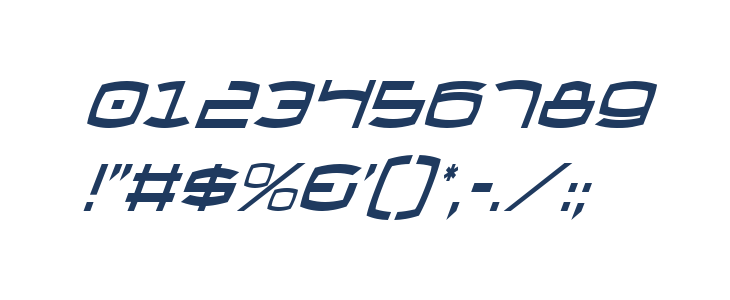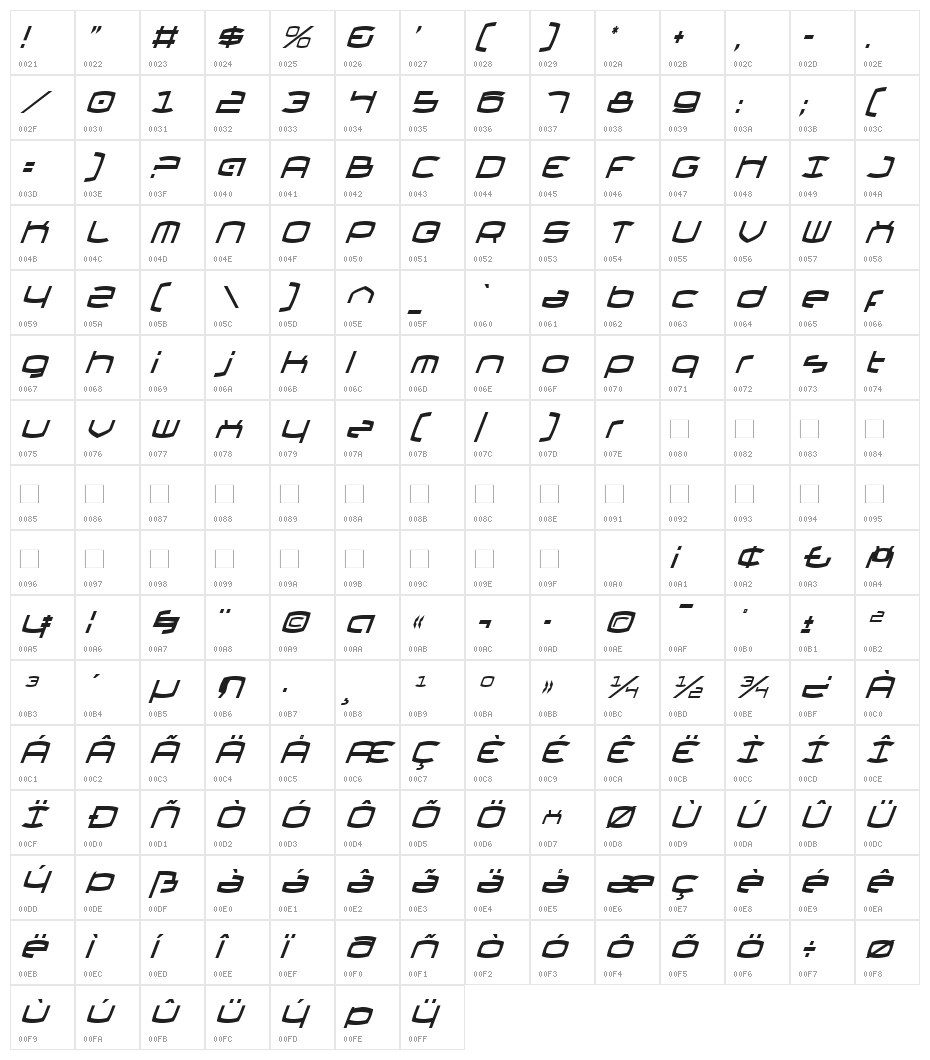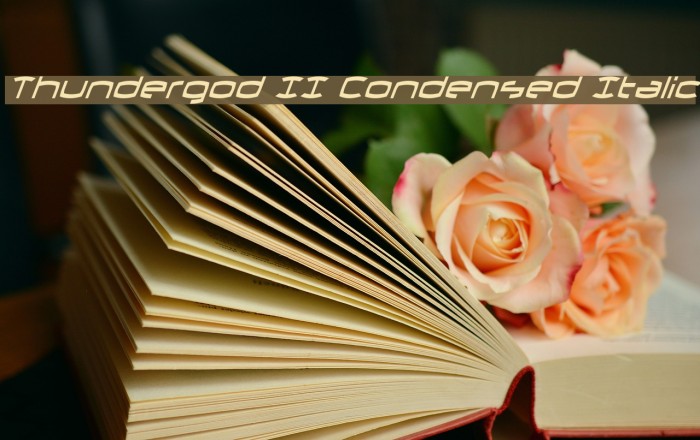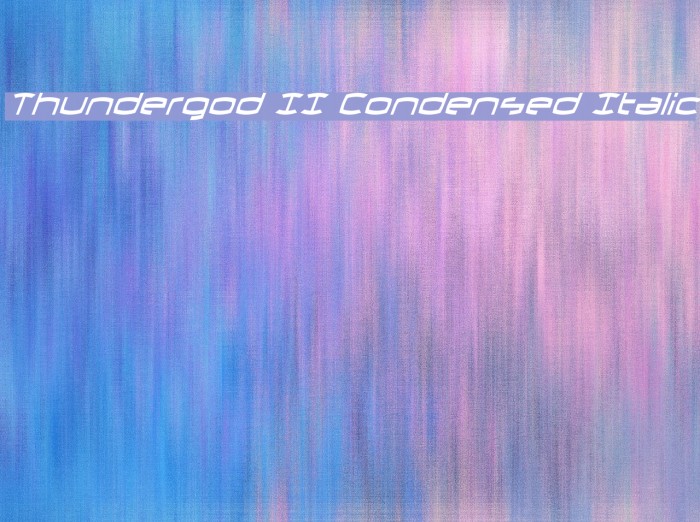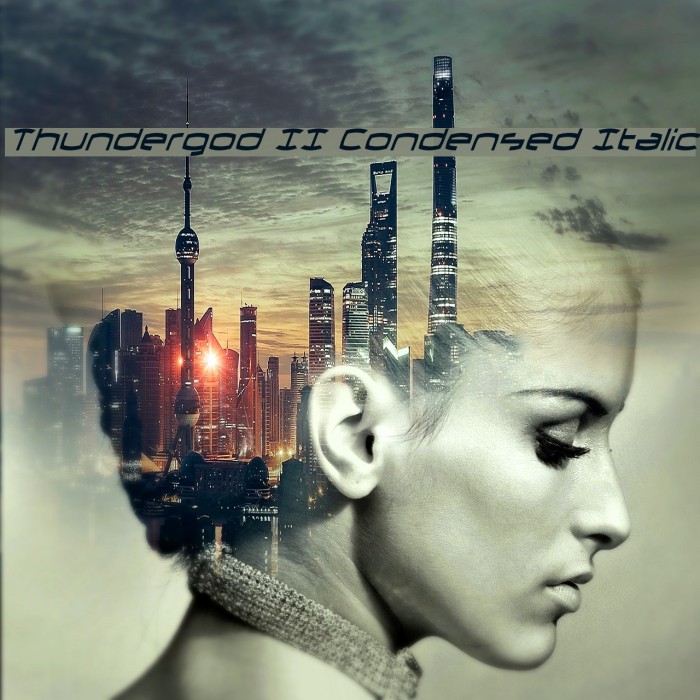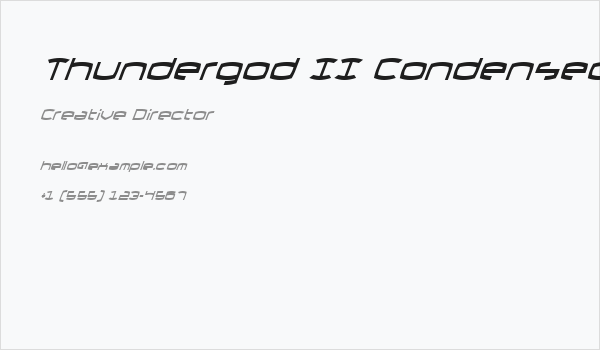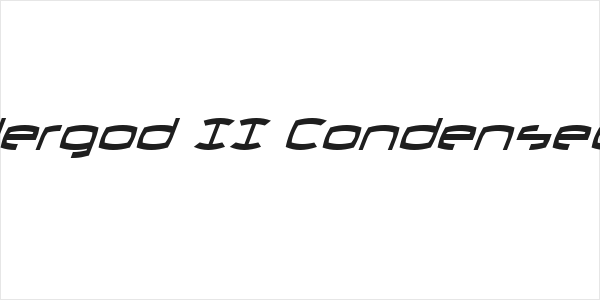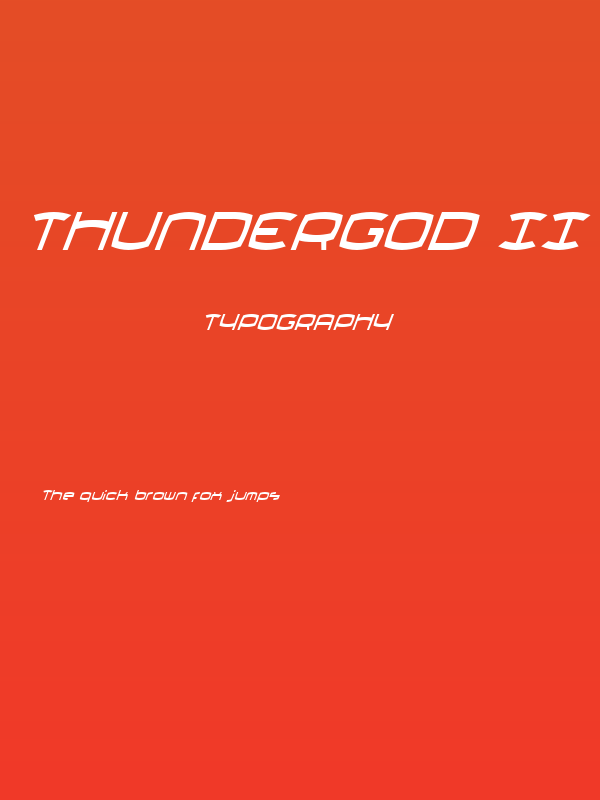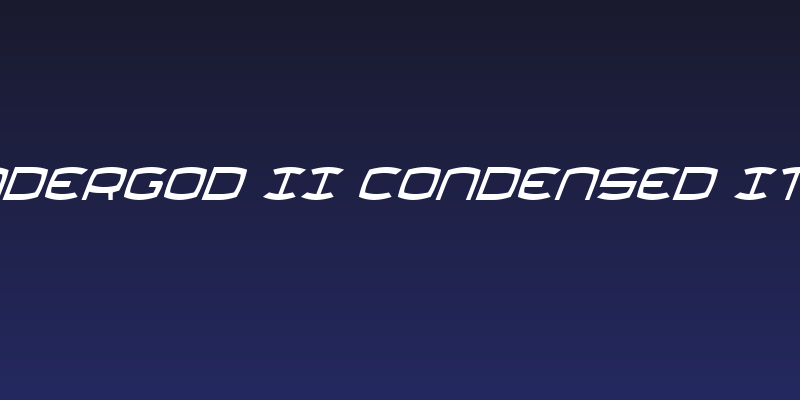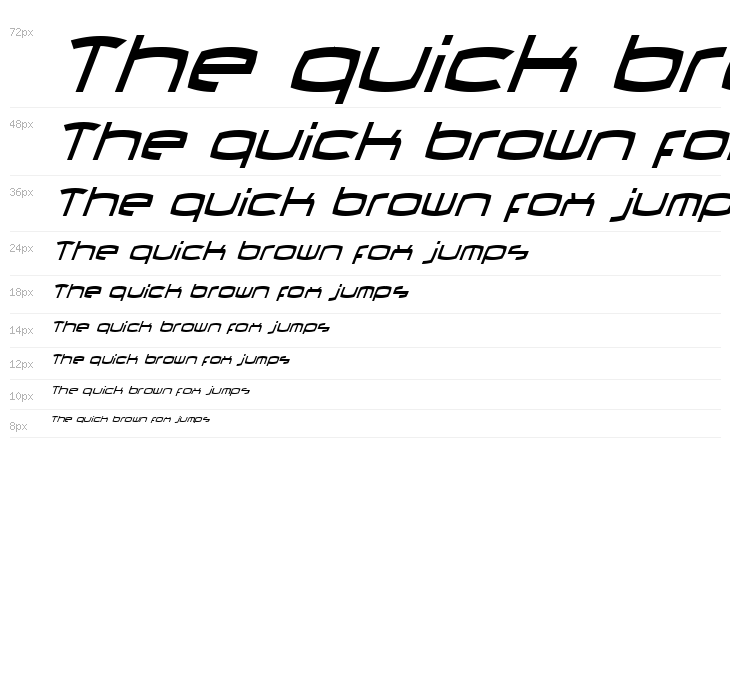
Thundergod II Condensed Italic Font
Thundergod II Condensed Italic Description
This font features a dynamic and futuristic design with a condensed and italicized style. The characters are sleek and angular, giving a sense of motion and speed. The uppercase and lowercase letters maintain a consistent slant, enhancing the italic effect. Numbers and special characters follow the same design principles, ensuring uniformity across all glyphs. The overall appearance is modern and edgy, suitable for projects that require a bold and impactful visual statement.
| Proposed Projects | Ideal for sci-fi themed projects, video game titles, tech branding, and dynamic poster designs. |